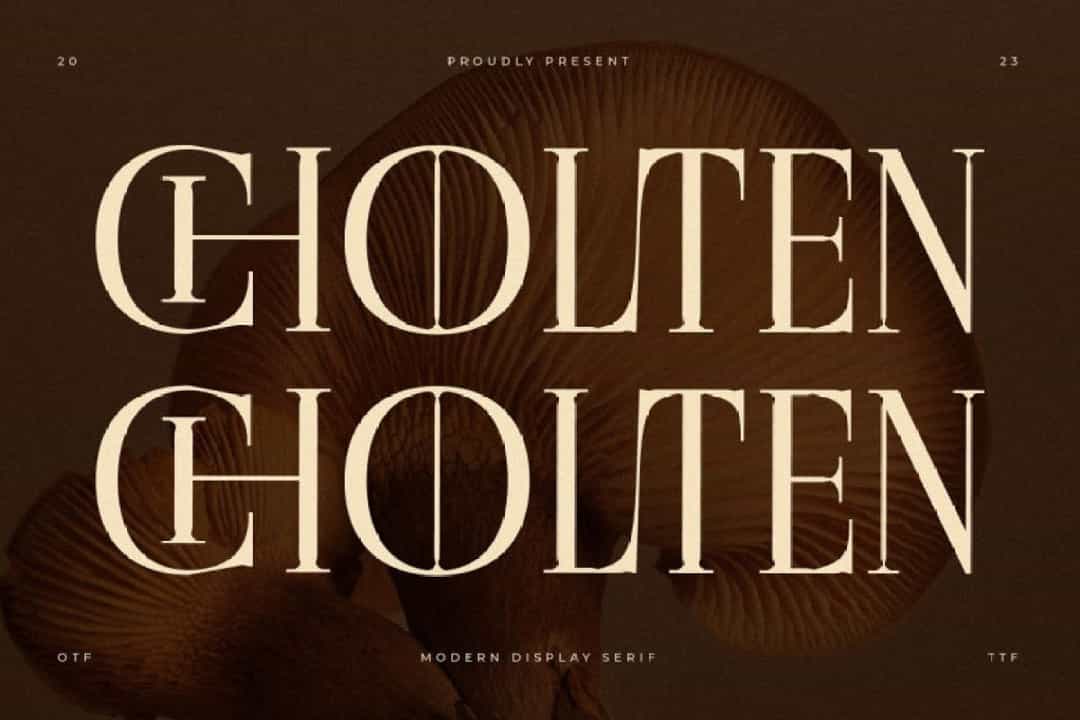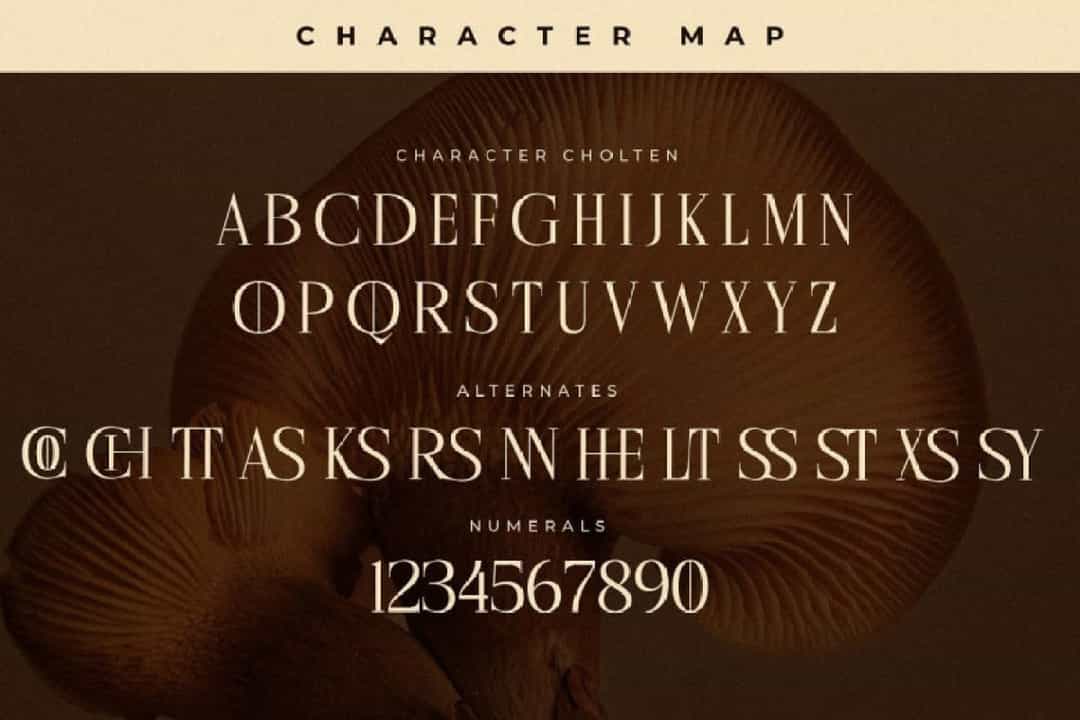
Cholten is a modern and timeless serif typeface with its own distinct design and distinctive look, ideal for use in logo design, movie/book styling, fashion label clothing labels, magazines letters quotes and much more.